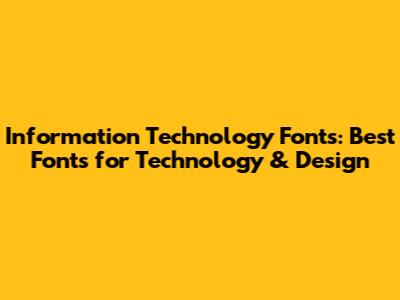
Choosing the right fonts for information technology (IT) projects is crucial for conveying professionalism, readability, and the right technological feel. In this article, we'll explore the best fonts for various IT applications, from website design to user interfaces and branding. We will delve into the specifics of what makes a font suitable for the tech industry, providing comprehensive insights and practical recommendations.
Understanding the Importance of Font Choice in IT
Font choice in the IT sector significantly impacts how users perceive your brand and interact with your products. In the world of technology, where precision and clarity are paramount, the fonts you select play a vital role in communicating these values. For instance, a clean, sans-serif font often conveys a sense of modernity and efficiency, aligning well with the cutting-edge nature of the tech industry. Conversely, a poorly chosen font can make a website look outdated, a user interface confusing, or marketing materials unprofessional. Think about it, guys: the right font can enhance readability on screens, improve user experience, and reinforce brand identity, making it an indispensable part of your overall IT strategy. Remember, the font is often the first point of contact with your audience, setting the tone for all subsequent interactions. Therefore, understanding the nuances of font selection is not just an aesthetic consideration but a strategic imperative in the competitive IT landscape.
Moreover, selecting the appropriate font goes beyond mere aesthetics; it directly influences usability and accessibility. Consider the context in which the font will be used. For websites and applications, ensure the font is optimized for screen display, offering excellent legibility across various devices and resolutions. A font that looks great in print might be illegible on a mobile screen, leading to user frustration and abandonment. Additionally, think about users with visual impairments. Choosing fonts with good contrast and clear letterforms is crucial for inclusivity. For example, fonts with a larger x-height and open counters can improve readability for users with low vision. It's also essential to test fonts across different browsers and operating systems to ensure consistency. Inconsistent rendering can undermine the user experience and damage your brand's credibility. By prioritizing usability and accessibility in your font selection, you demonstrate a commitment to user-centric design, fostering trust and loyalty. The right font, therefore, becomes a powerful tool in creating a positive and inclusive user experience, vital for success in the tech industry.
Finally, the right font can significantly enhance the overall design and user experience of your IT projects. Fonts that complement the brand's identity and the project's purpose create a cohesive and professional look. Consistency in font usage across all platforms reinforces brand recognition and strengthens brand messaging. When selecting a font, consider its personality and the message it conveys. Is it modern and sleek, or traditional and reliable? The font should align with the brand's values and resonate with the target audience. Furthermore, pay attention to the font's versatility. Can it be used effectively in headlines, body text, and other design elements? A versatile font provides flexibility and ensures a consistent look across all touchpoints. Integrating the right font into your IT projects is about creating a harmonious balance between aesthetics, usability, and brand identity, resulting in a polished and impactful final product.
Top Font Categories for IT Projects
When diving into the world of IT projects, selecting the correct font category can set the tone and significantly impact user experience. We'll explore the leading font categories favored in the tech industry, detailing their characteristics and ideal uses. These categories include Sans-Serif, Serif, Monospace, and Display fonts, each offering unique advantages for various IT applications. Understanding these differences will enable you to make informed decisions that align with your project's goals and brand identity.
Sans-Serif Fonts
Sans-serif fonts are a staple in the IT industry, celebrated for their clean, modern, and readable design. Unlike serif fonts, they lack the small decorative strokes at the end of each character, giving them a minimalist and contemporary look. This simplicity makes them highly legible on screens, which is crucial for websites, applications, and user interfaces. Popular sans-serif fonts include Arial, Helvetica, Open Sans, and Roboto. Arial is a widely used font known for its clarity and universality, making it a safe choice for body text and headings. Helvetica, renowned for its neutrality and versatility, is often used in corporate branding and website design. Open Sans, designed with open forms and a neutral-yet-friendly appearance, is excellent for web content and mobile applications. Roboto, a modern and geometric font, is a favorite among Android developers for its readability and aesthetic appeal. When selecting a sans-serif font, consider factors such as the font's weight, width, and character spacing to ensure optimal readability and visual appeal. These fonts are particularly effective for conveying a sense of innovation, efficiency, and professionalism, aligning perfectly with the values of the tech industry.
Furthermore, sans-serif fonts are incredibly versatile and adaptable to a wide range of IT applications. Their clean lines and simple forms make them ideal for user interfaces where clarity and quick recognition are paramount. Think about the navigation menus, buttons, and form fields in your favorite apps. Chances are they utilize a sans-serif font to ensure a seamless and intuitive user experience. In web design, sans-serif fonts are frequently used for both headings and body text, providing a consistent and readable experience across different devices and screen sizes. Their legibility extends to smaller screens, making them perfect for mobile-first designs. Beyond digital applications, sans-serif fonts are also suitable for branding materials such as logos and marketing collateral. Their modern aesthetic can help convey a cutting-edge image, which is particularly important for tech companies looking to establish themselves as industry leaders. By carefully selecting the right sans-serif font, you can create a cohesive and impactful brand presence that resonates with your target audience.
In addition to their aesthetic and usability benefits, sans-serif fonts also offer practical advantages in terms of scalability and compatibility. These fonts typically render well across different browsers, operating systems, and devices, ensuring a consistent user experience regardless of the technology used. This cross-platform compatibility is crucial in the IT industry, where users access content from a wide range of devices. Additionally, sans-serif fonts are often available in multiple weights and styles, providing flexibility in design and allowing you to create visual hierarchy within your content. For instance, you might use a bold sans-serif font for headings and a lighter weight for body text, guiding the reader's eye and improving overall readability. Moreover, many sans-serif fonts are open-source and freely available, making them a cost-effective option for IT projects with limited budgets. By leveraging the versatility, compatibility, and affordability of sans-serif fonts, you can create professional and engaging IT solutions without breaking the bank.
Serif Fonts
Serif fonts, characterized by their small decorative strokes at the end of each character, bring a touch of tradition and formality to IT projects. While they might not be the first choice for on-screen readability due to potential rendering issues on lower-resolution screens, serif fonts can still be valuable in specific contexts. Common examples include Times New Roman, Georgia, and Palatino. Times New Roman, while often criticized for its overuse, remains a classic choice for formal documents and print materials. Georgia, designed specifically for on-screen readability, is an excellent option for websites and applications that require a serif font. Palatino, known for its elegance and readability, is suitable for longer blocks of text and print publications. When using serif fonts in IT projects, it's crucial to consider the font size, line height, and letter spacing to ensure optimal readability and visual appeal. These fonts can be particularly effective for conveying a sense of authority, reliability, and sophistication, making them ideal for industries such as finance, law, and education within the IT sector.
Moreover, serif fonts can add a layer of sophistication and trustworthiness to your IT brand. Think about how they can be used strategically in logos, headings, and branding materials to create a sense of history and tradition. For instance, a tech company with a long-standing reputation might choose a serif font to convey its experience and reliability. In contrast, a startup might opt for a modern sans-serif font to project innovation and forward-thinking. Serif fonts can also be effective in print materials such as brochures, reports, and presentations, where their enhanced readability on paper can make a significant difference. When combining serif and sans-serif fonts, it's essential to create a harmonious balance. Pairing a serif font for headings with a sans-serif font for body text can create a visually appealing and readable design. However, it's crucial to avoid using too many different fonts, as this can create a cluttered and unprofessional look. By carefully considering the context and purpose of your IT project, you can leverage the unique characteristics of serif fonts to enhance your brand's identity and messaging.